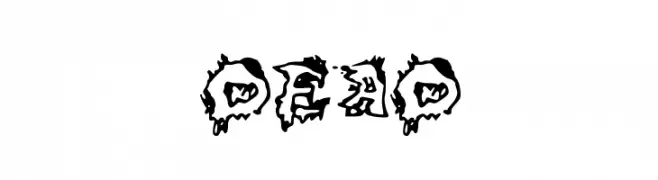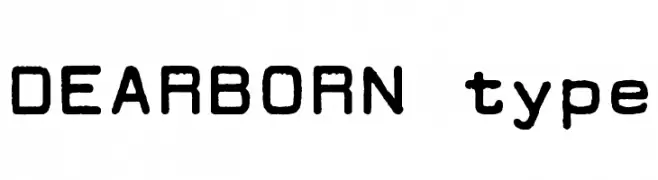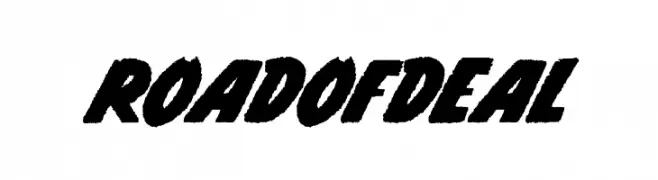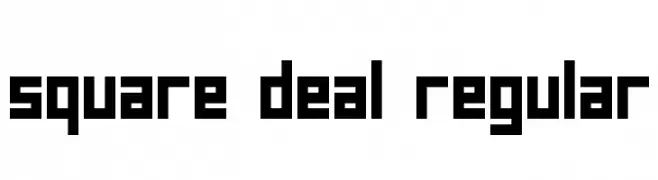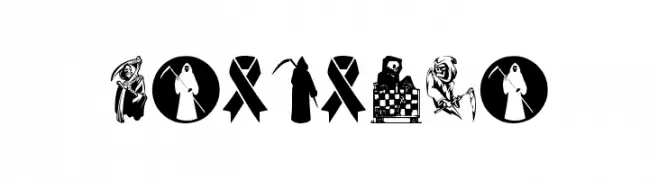
A bold, playful font with thick, rounded strokes and strong contrast.
A whimsical, bold icon set of diverse cartoon faces.
A bold, glitch-inspired font with a modern, digital aesthetic.
A bold, geometric font with strong, angular lines and a modern aesthetic.
A bold, distressed font with a rugged, vintage appearance.
A chaotic, grungy font with jagged, scribble-like characters.
A bold, thorny, and gothic font with intricate, jagged edges.
A bold, playful font with rounded edges and a bubbly appearance.
A dynamic, flowing script font with elegant, cursive letterforms and an italic slant.
A geometric, angular font with hexagonal shapes and consistent line thickness.
A bold, distinctive serif font with a classic yet modern flair.
A classic serif font with a modern twist, featuring elegant curves and refined details.
A bold, serif font with angular serifs and a strong, distinctive style.
A classic serif font with a vintage flair, offering elegance and readability.
A classic serif font with light weight and elegant, elongated characters.
An elegant script font with flowing, cursive letterforms and decorative swashes.
A modern serif font with a blend of traditional and contemporary elements.
A bold, angular outline font with a modern, edgy design.
A bold, angular, semi-italic font with a dynamic and aggressive style.
A bold, angular font with a futuristic and edgy design.
A bold, angular font with a modern and dynamic style.
A bold, geometric font with sharp, angular edges and a modern style.
A bold, rugged font with a distressed, vintage appearance.
A modern, monospaced font designed for clarity and readability in coding.
A modern, monospaced italic font with medium weight, ideal for coding and technical documentation.
A bold, monospaced font ideal for coding with clear, geometric characters.
A modern, monospaced font designed for clarity and readability.
A bold, italic monospaced font ideal for coding and technical use.
A bold, monospaced font ideal for coding with excellent readability.
A modern, monospaced font with bold, italic styling and high contrast.
A modern, monospaced italic font designed for readability and clarity.
A playful, bold font with exaggerated serifs and whimsical curves.
A playful, rounded font with smooth curves and consistent thickness.